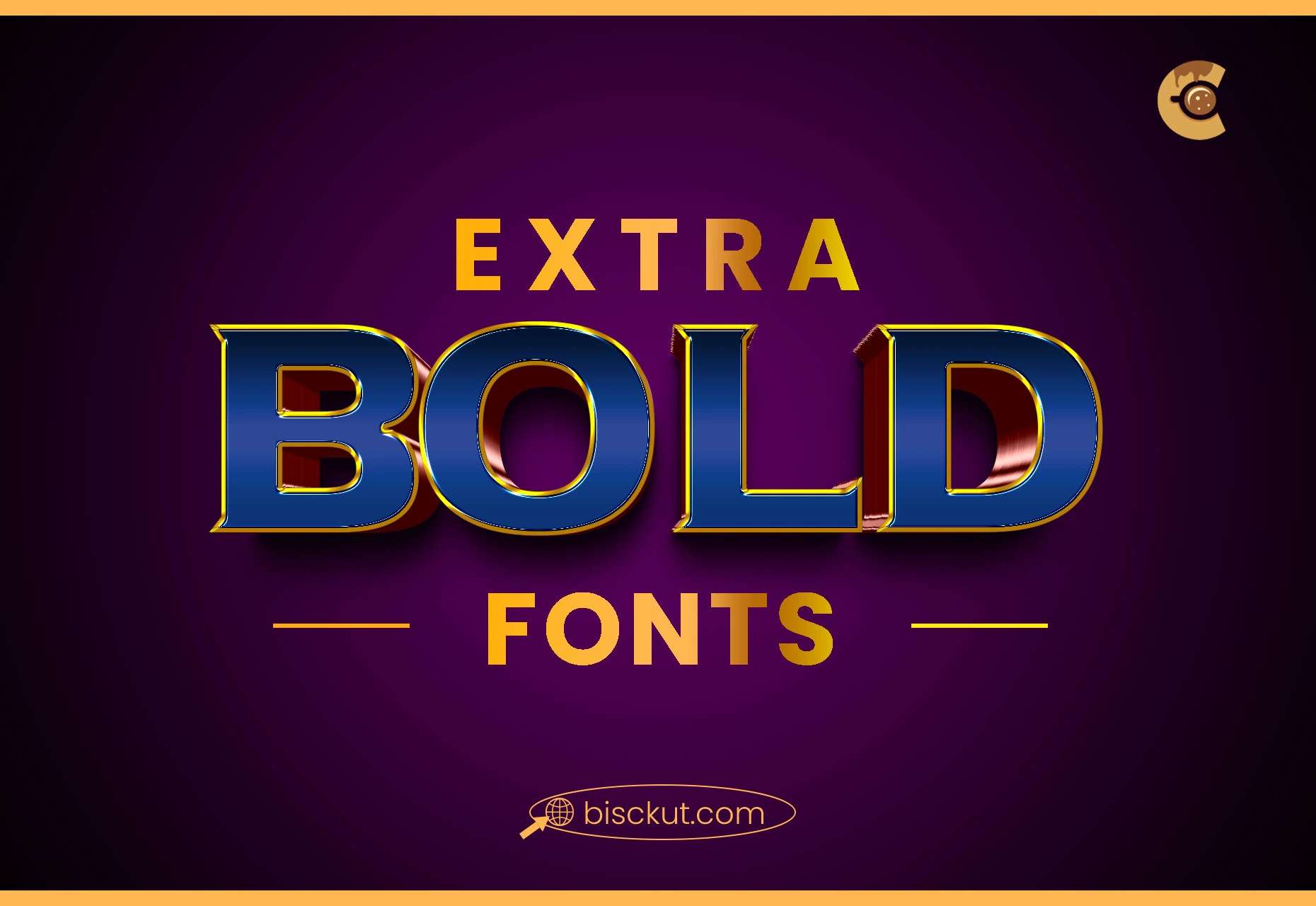
Top Extra Bold Fonts for Creating Memorable Branding Projects
When it comes to creating a strong brand identity, typography plays a huge role. I’ve seen how Extra Bold fonts can completely transform a brand. They not only make a visual statement but also evoke emotions and make a logo stand out in a crowded marketplace.
Think about it—how do you want your brand to be remembered? Whether you’re designing a logo or creating a bold ad, Extra Bold fonts leave a lasting impression. Bold, impactful typography helps build brand recall, which is a must in today’s competitive design world.
In this article, I’m going to walk you through the main benefits of using Extra Bold fonts in branding, and how to choose the right font, and I’ll share some of the best picks I’ve used in my projects. Whether you’re working on a logo, social media post, or packaging, there’s a bold font for every branding need.
What Makes a Font “Extra Bold” in Branding?
As a graphic designer, I’m often confused about which fonts are “extra bold.” While bold fonts are common, extra bold fonts take that strength to the next level. Think of extra bold fonts as the heavy lifters of typography – designed to stand out in visually demanding spaces without overwhelming the design.
From a design perspective, the weight of extra bold fonts serves a strategic purpose. Their meaningful presence not only draws attention but also creates balance. The secret is to use them thoughtfully. Too much boldness can be disturbing, while too little won’t have the desired effect.
Extra bold fonts fall between bold and black fonts. They’re more versatile than black fonts and offer enough boldness to ensure readability even from a distance. This makes them ideal for headlines, banners and logos where you want the message to stand out. These fonts provide the perfect solution when creating brand identities that convey confidence, authority or boldness.
Top 14 Extra Bold Fonts for Memorable Branding Projects
I’ve carefully selected some of the best Extra Bold fonts that are versatile, impactful and available for free. Each of these fonts has something unique to offer depending on your branding needs
Poppins Bold
A geometric sans-serif font that’s friendly and modern, perfect for brands looking for an accessible, yet bold identity. Poppins’s clean lines make it a great choice for tech and lifestyle brands.
Oswald Bold
With its concise look, Oswald is great for designs where space is limited, yet you still want the text to stand out. It’s great for social media or poster design.
Anton
Strong, bold and simple. Anton’s wide, blocky look makes it ideal for headlines and banners where you need to grab attention quickly. It’s a versatile font for modern brands that want to make a big statement.
Roboto Bold
With its balanced mix of mechanical and organic shapes, Roboto provides a clean, legible extra bold option that works well for both print and digital designs.
Montserrat Bold
Its elegant curves and bold structure make it an excellent choice for luxury branding and product packaging.
Bebas Neue
This font is perfect for creating posters and social media banners. Its tall, slender form gives the design a dynamic look.
Fjalla One
A compact sans-serif that gives you high readability even at small sizes, making it great for advertising materials or packaging.
Raleway Bold
A modern, sans-serif font that strikes a balance of boldness and elegance. It’s great for the creative industry or minimalist branding projects.
Bitter Bold
A serif option that brings a classic yet bold feel to branding, ideal for publications or editorial designs.
Work Sans Bold
With its sophisticated simplicity, this font works great for modern and minimalist brand identities, especially in the tech or business sectors.
Exo 2 Bold
With a futuristic and clean design, the Exo 2 Bold offers a dynamic look perfect for tech companies or modern brands. Its geometric structure gives a sleek and professional touch.
Archivo Black
Archivo Black is a versatile sans-serif font that is bold and highly legible even at small sizes. It’s great for digital media, packaging, or any project that requires emphasis without compromising readability.
Playfair Display Bold
Playfair Display Bold combines traditional elegance with a modern twist. Its sharp, contrasting strokes make it perfect for editorial use, giving headlines a sophisticated and bold flair while maintaining high readability.